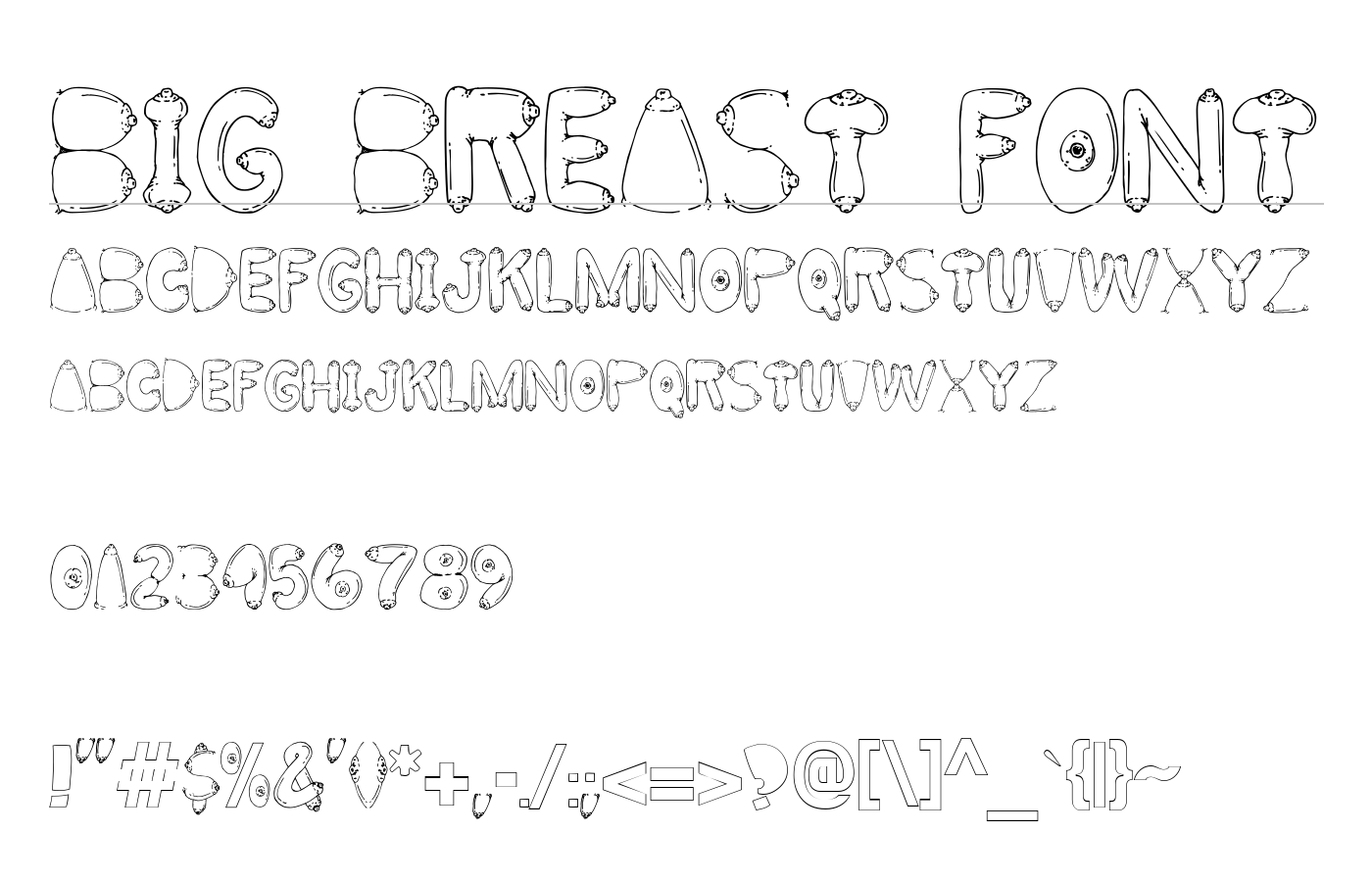
BIG BREAST FONT is a whimsical and provocative display typeface characterized by its playful, hand-drawn style mimicking rounded, organic shapes. With its irregular outlines and distinctive details, it evokes a casual, humorous tone best suited for bold, informal designs that want to attract attention and create a quirky, unconventional vibe. This font works well for fun posters, novelty products, or creative branding where an edgy, lighthearted personality is desired.
BIG BREAST FONT